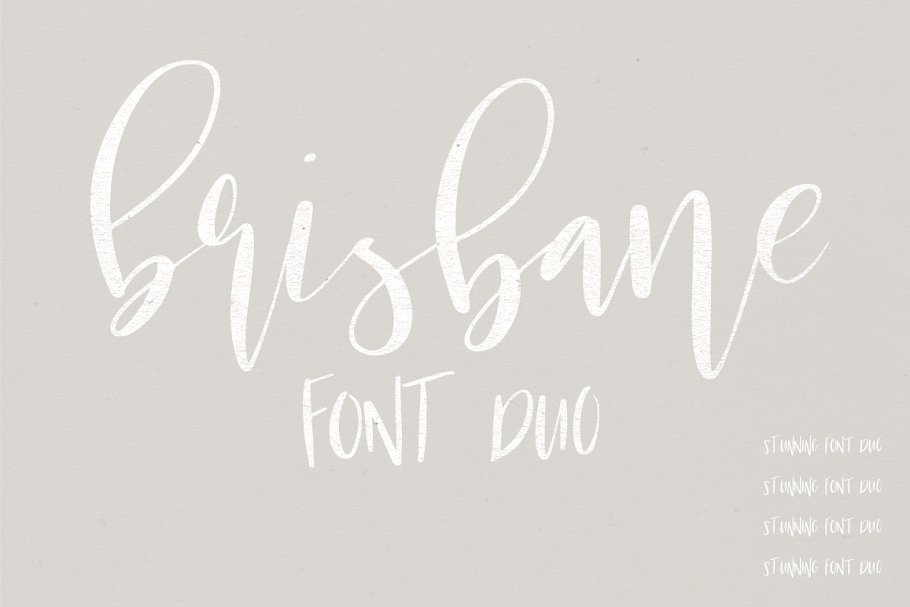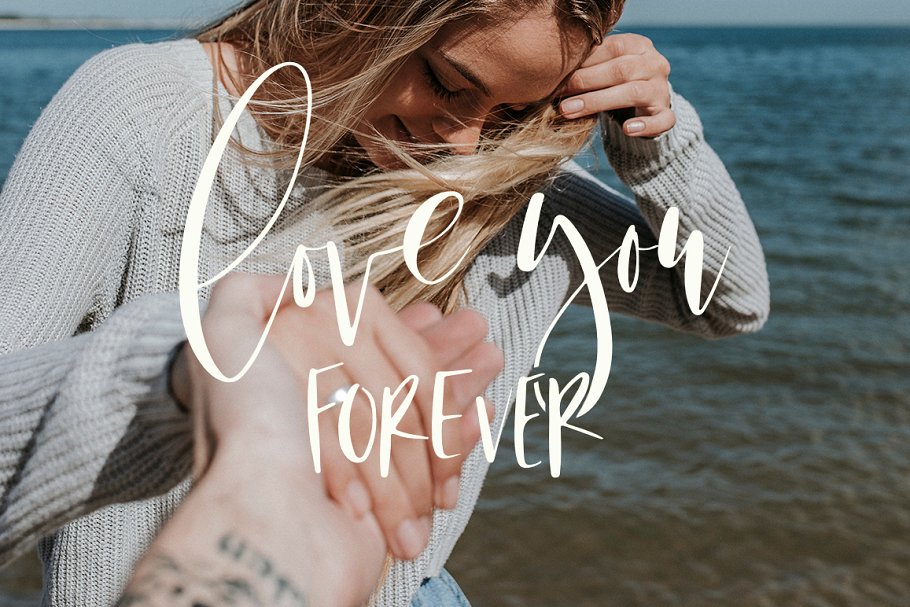
About the Brisbane A Scripty Duo Font
Brisbane is a gorgeous and fun font duo that is perfect for wedding invitations, baby shower invites, logos, and so much more! It looks stunning paired with sans serif fonts like Gotham or Proxima Nova, or on its own as a big beautiful header, Have fun with this set!IncludesBrisbane Script (an all-lowercase script with alternates via uppercase letters)Brisbane Regular (an all-uppercase script with alternates via lowercase letters)Numbers + punctuationNon-English charactersTip: If the tops + bottoms of your letters cut off, increase your line spacingPlease recommend if you love it! If not, I am always making improvements and would love to hear how Brisbane can be even better!